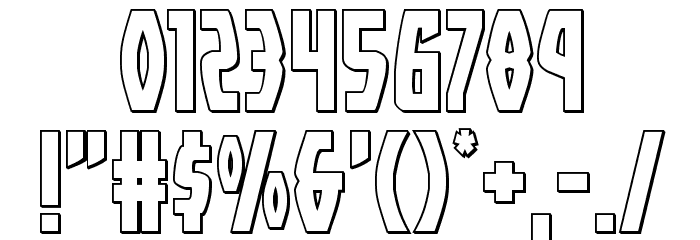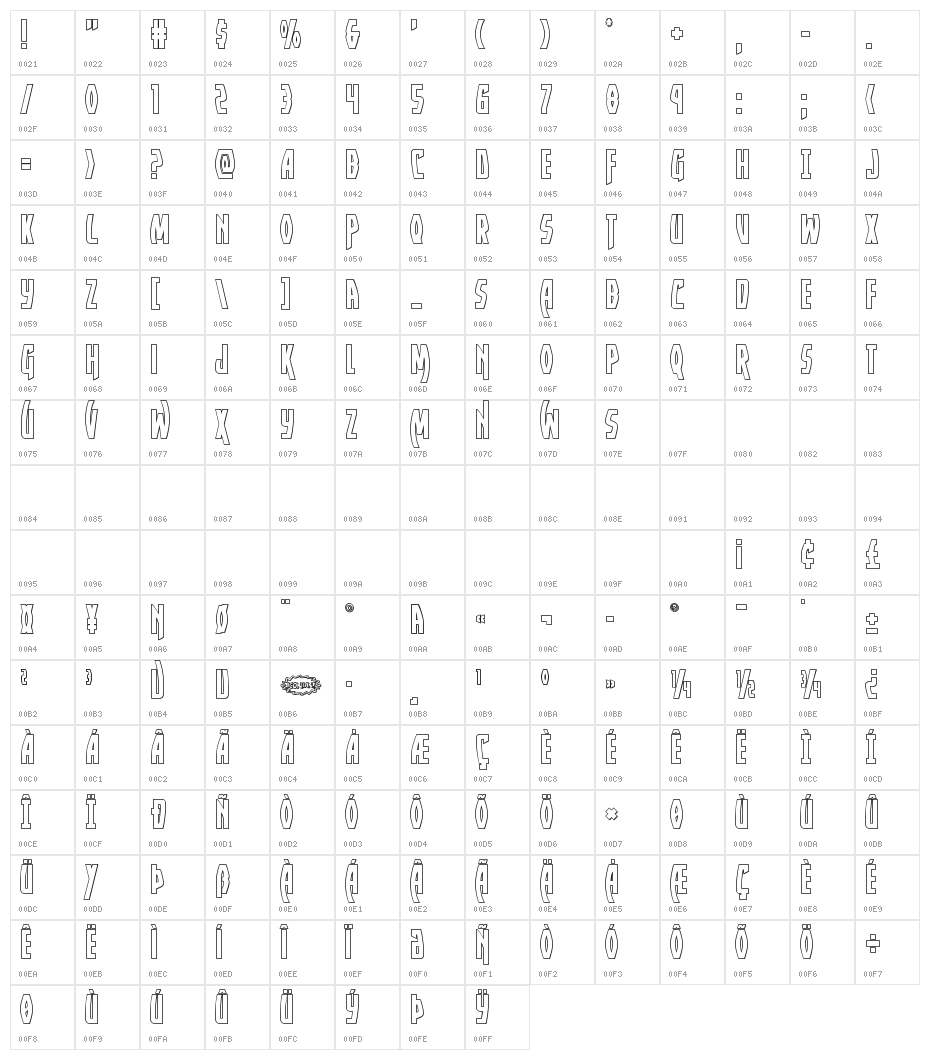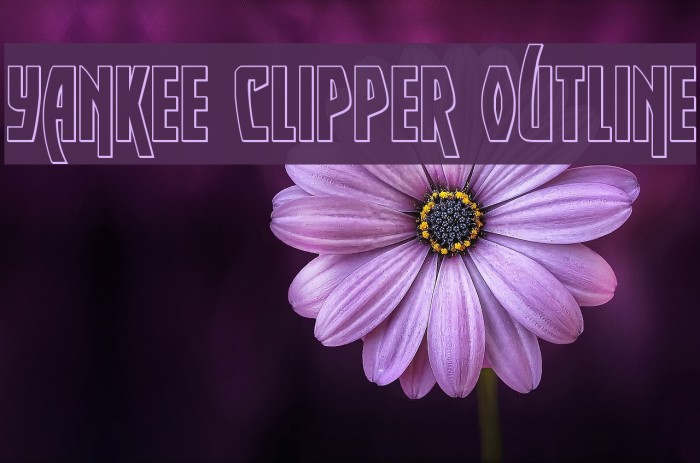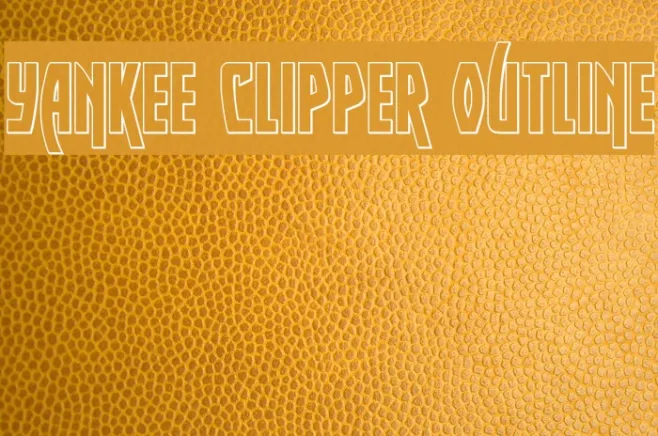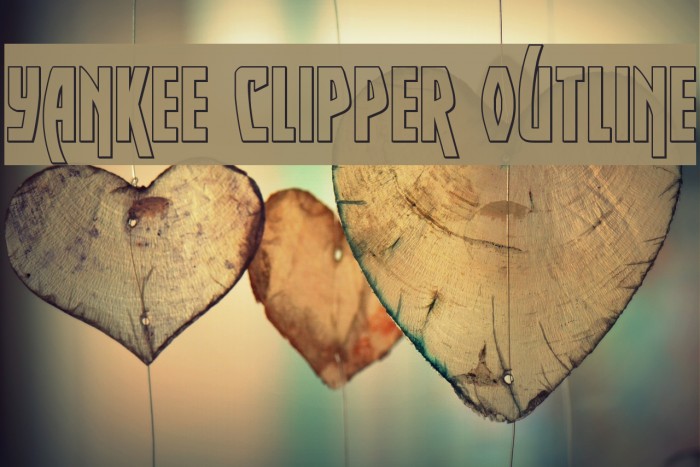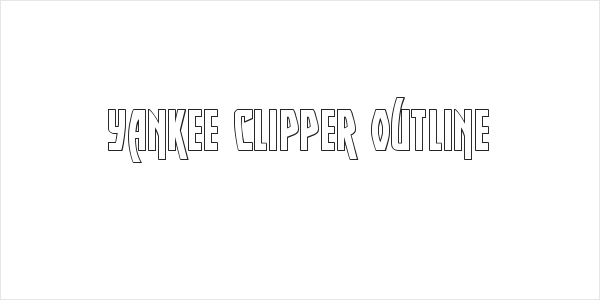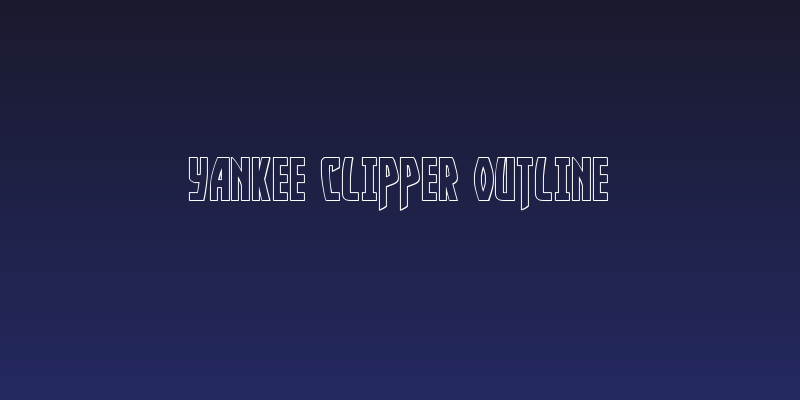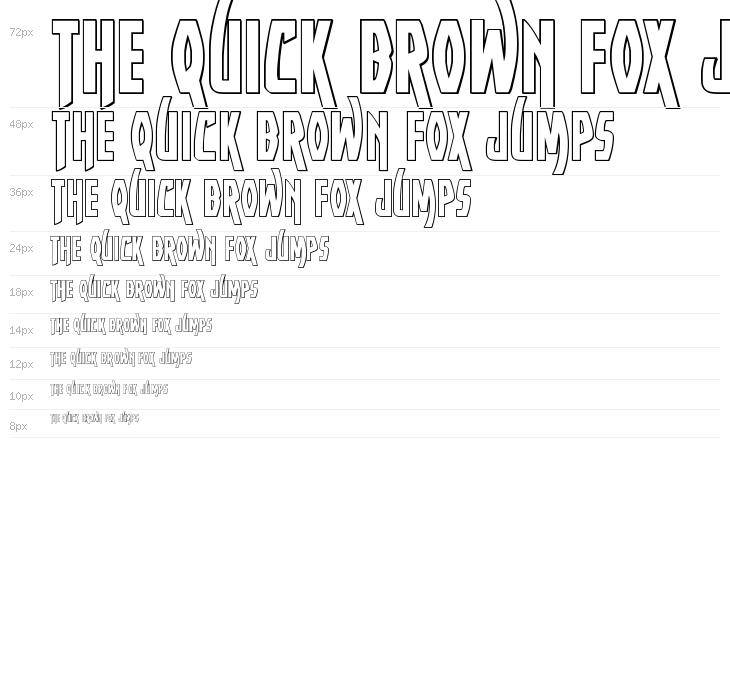
Yankee Clipper Outline Font
Yankee Clipper Outline Description
This font features a bold, outlined style with a strong geometric influence. The characters are uppercase and lowercase, with a consistent outline that gives them a striking, impactful appearance. The design is angular, with sharp edges and a modern aesthetic that makes it stand out. The numbers and special characters follow the same outlined pattern, ensuring uniformity across all glyphs. This font is ideal for projects that require a bold statement or a modern, edgy look.